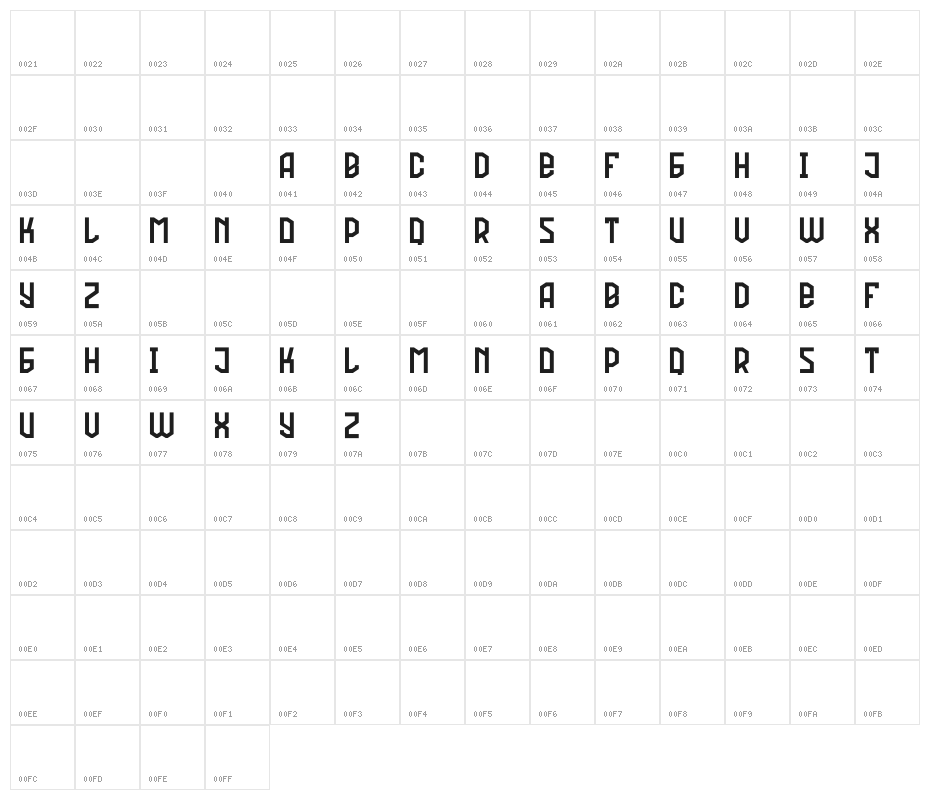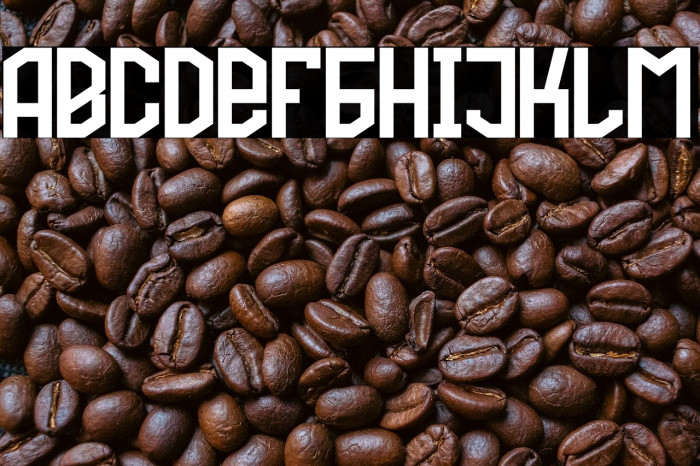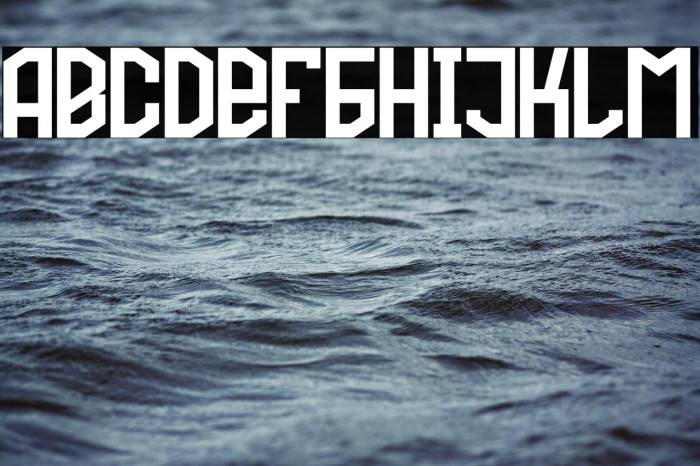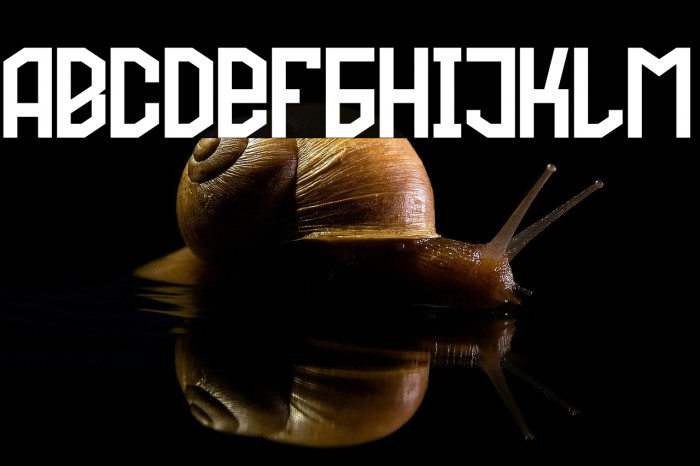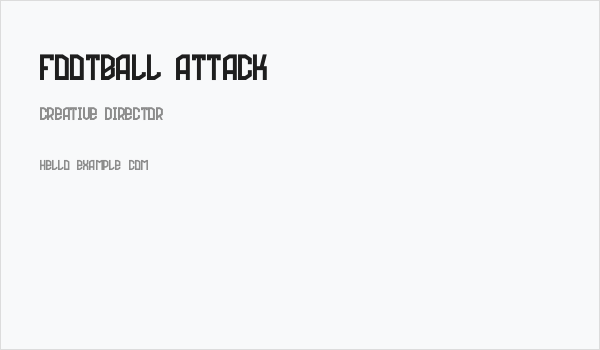
Football Attack Font
Football Attack Description
This font features a bold, geometric design with a strong, angular presence. Each character is constructed with thick, straight lines and sharp angles, creating a sense of strength and stability. The uniformity in line thickness across all characters contributes to a cohesive and structured appearance. The font's design is reminiscent of sports or athletic themes, making it ideal for projects that require a bold and impactful visual statement. Its uppercase letters are particularly striking, with a blocky and robust form that commands attention.
| Use Case | Logos, Headlines |
| Proposed Projects | Ideal for sports branding, team logos, event posters, and merchandise designs. |